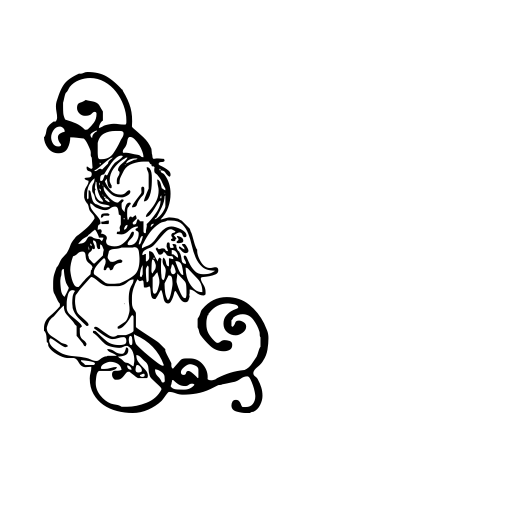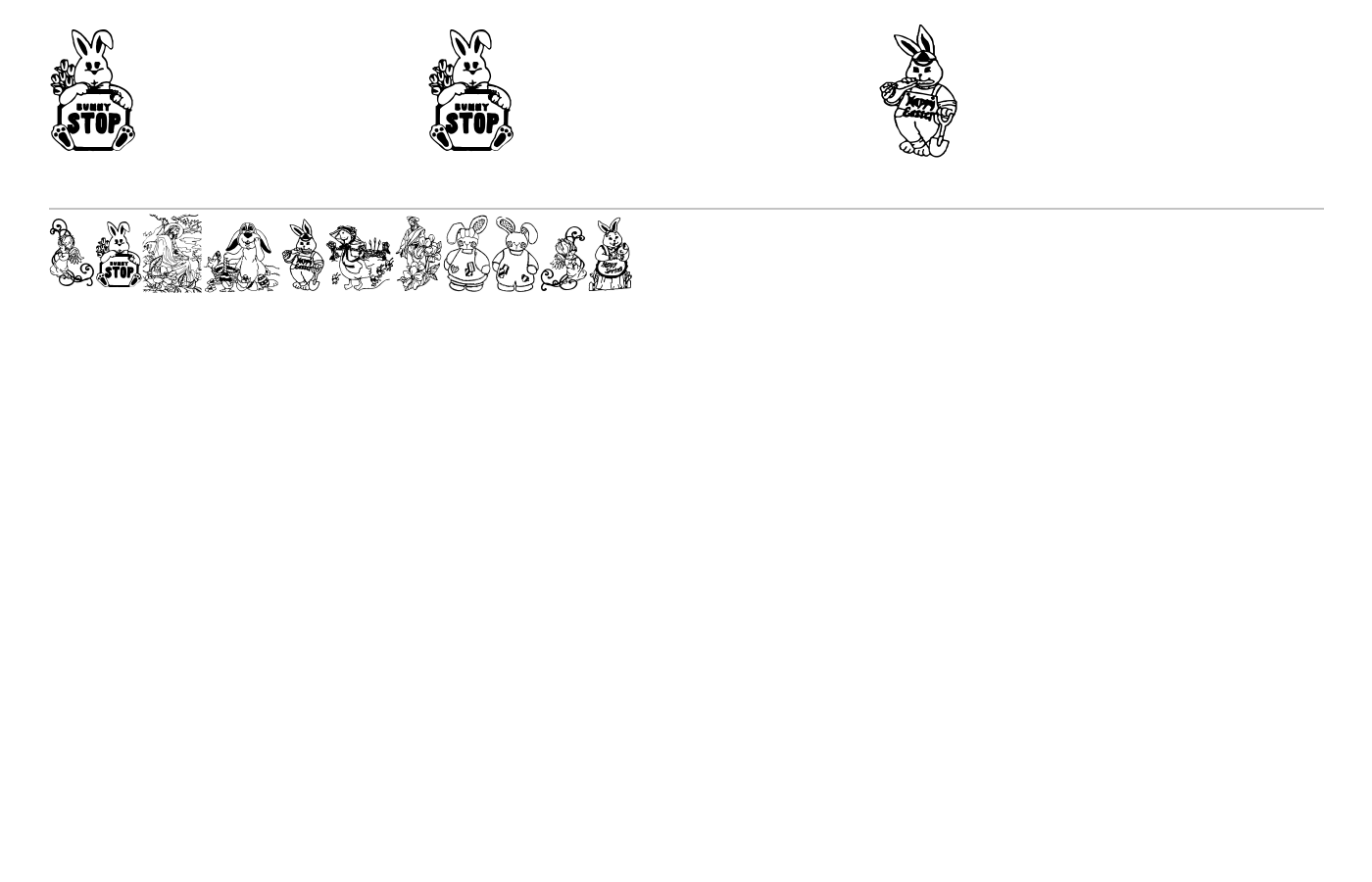
BabysBreathEaster is a playful, whimsical dingbat font featuring charming Easter-themed illustrations such as bunnies and floral motifs. This decorative font works perfectly for seasonal designs, holiday cards, and festive invitations, adding a fun and lighthearted touch to any project. Its detailed, hand-drawn style brings warmth and a nostalgic feel to spring celebrations and children’s events.
BabysBreathEaster Font
About BabysBreathEaster Font